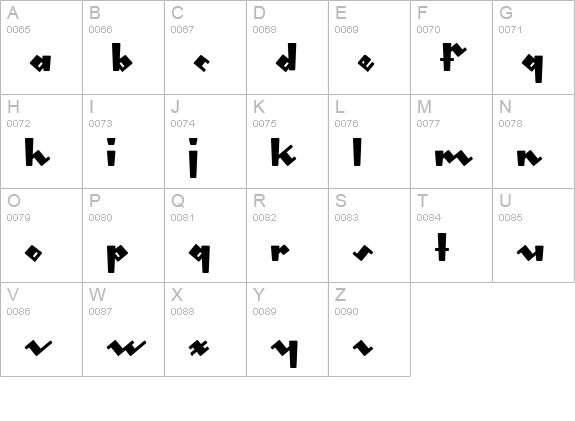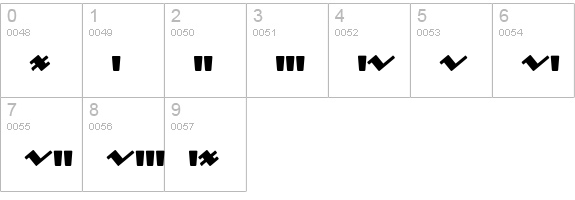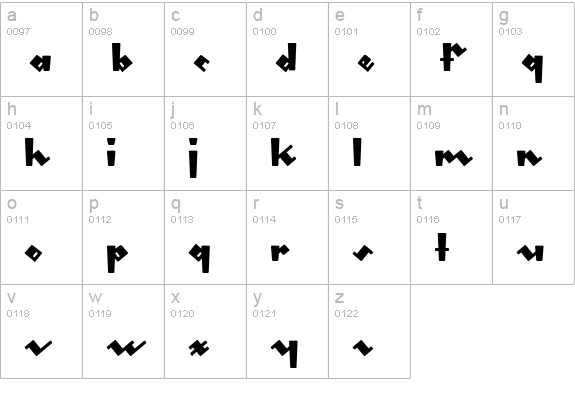
gleeburger Font Details
Introducing Gleeburger Font, a versatile and modern typeface that is sure to make your designs stand out! This unique font features a sleek and stylish design, with clean lines and a contemporary feel. Perfect for a variety of projects, from branding and logos to social media graphics and more. What sets Gleeburger Font apart is not only its stunning aesthetic, but also the fact that it is completely free to download. Yes, you heard that right - this high-quality font is freely available for you to use in your projects with no cost involved. Simply head over to FontsMarket.com to grab your copy and start creating beautiful designs today! Gleeburger Font is a must-have addition to any designer's toolkit, offering a fresh and eye-catching look that will make your work truly unforgettable. Download your free copy now and unleash your creativity with this fantastic font!